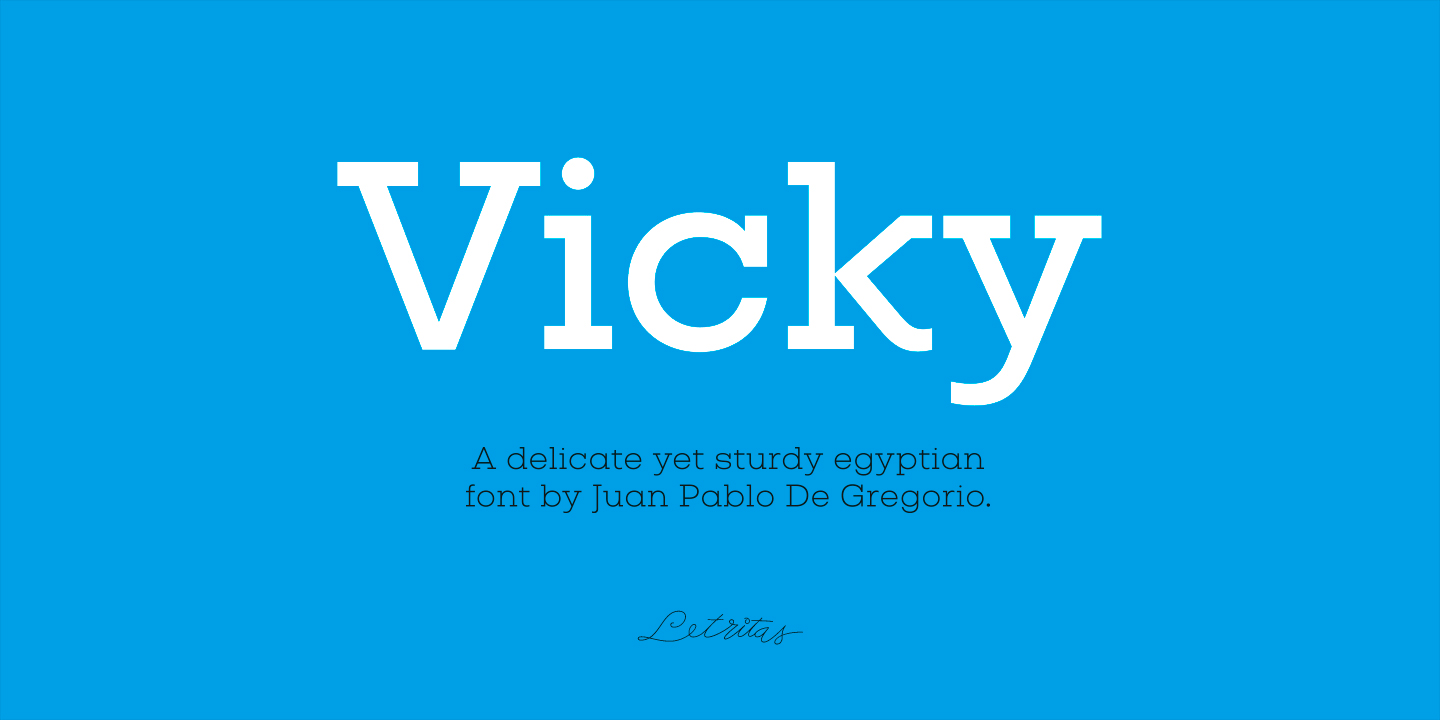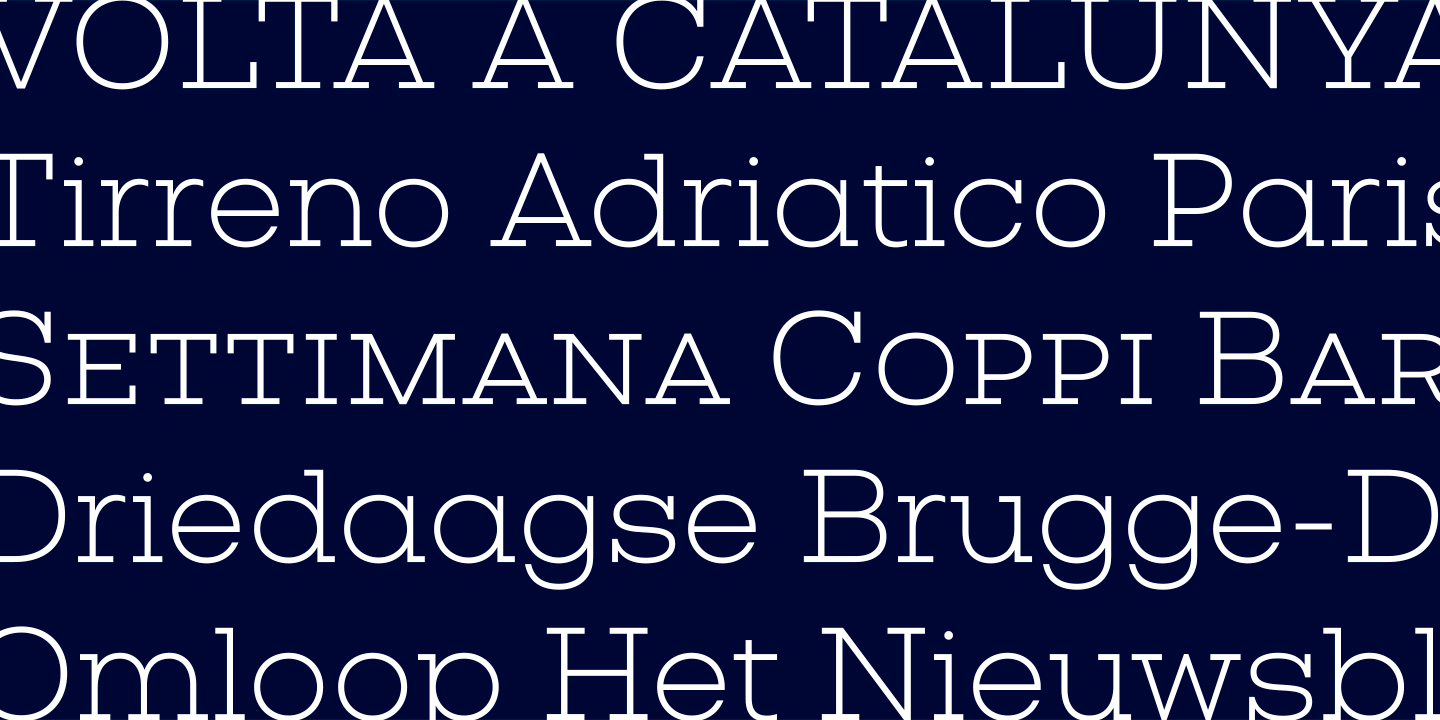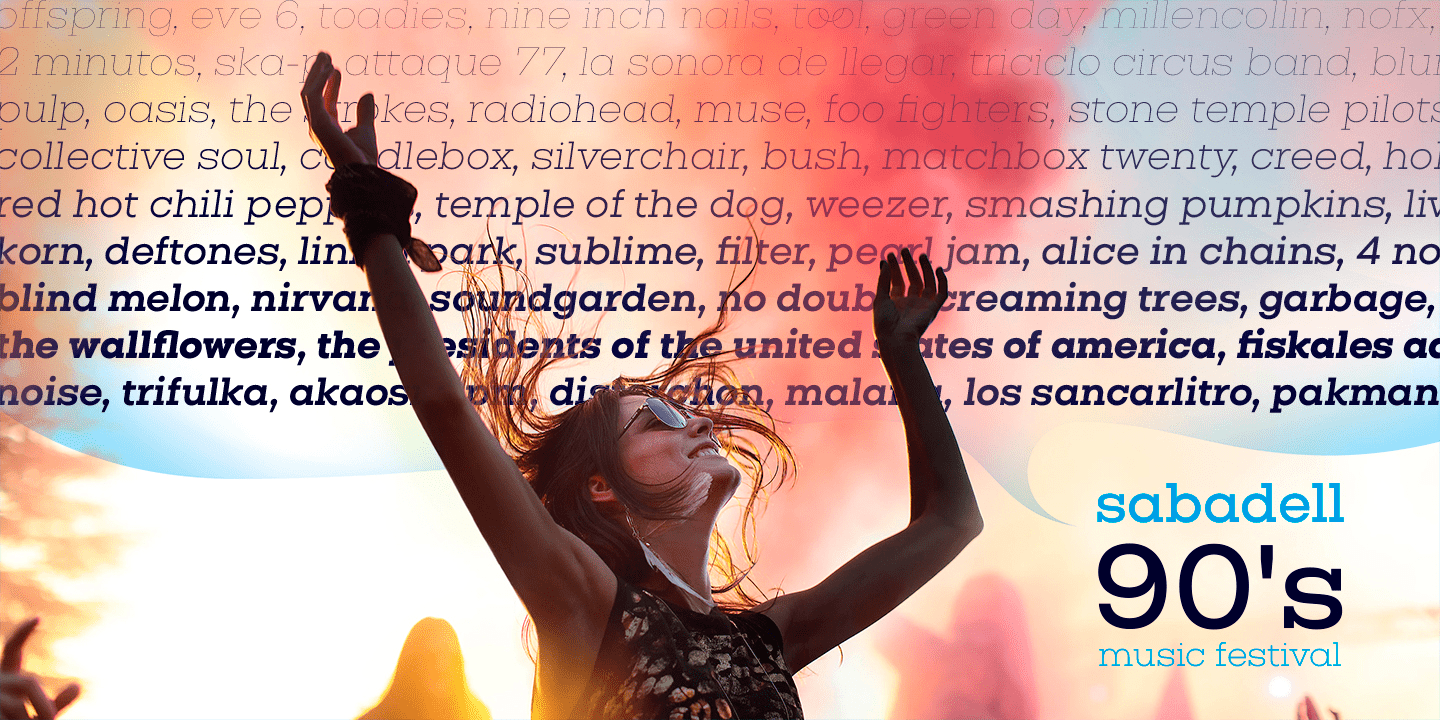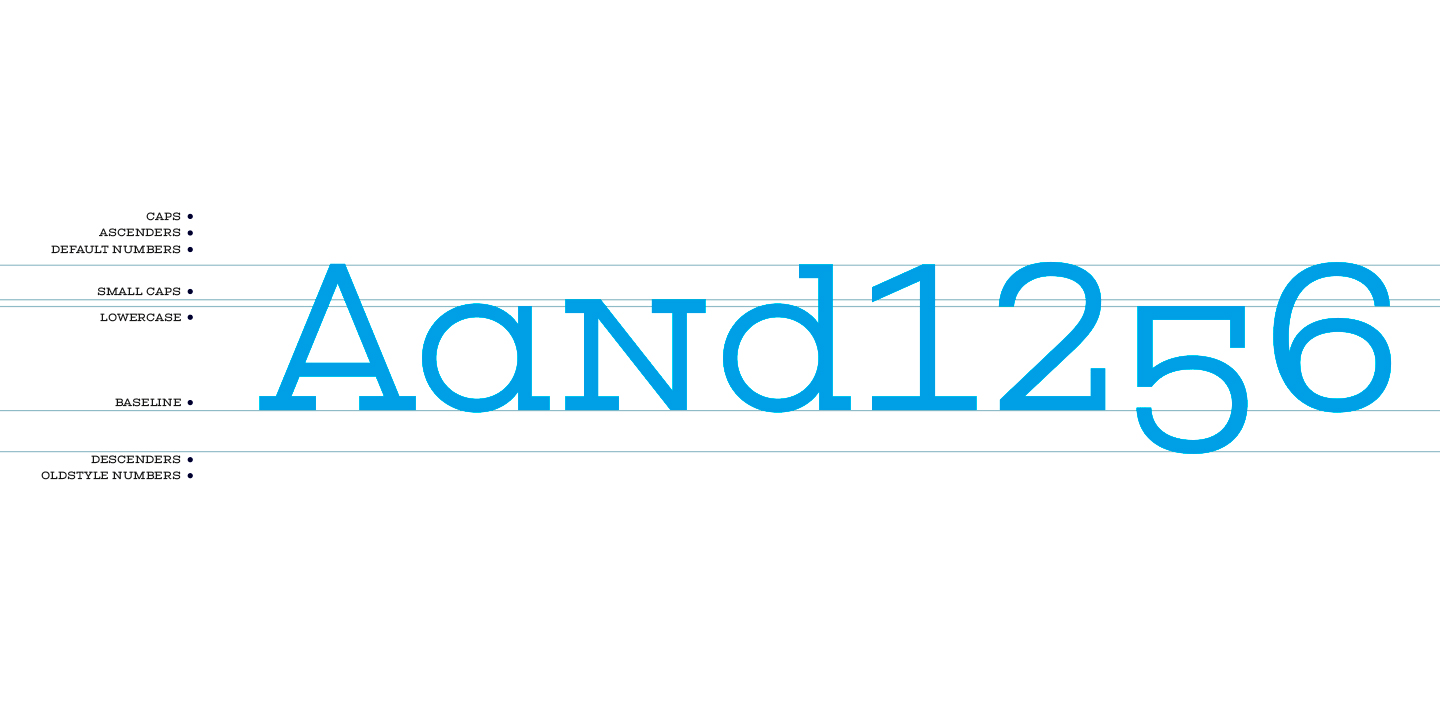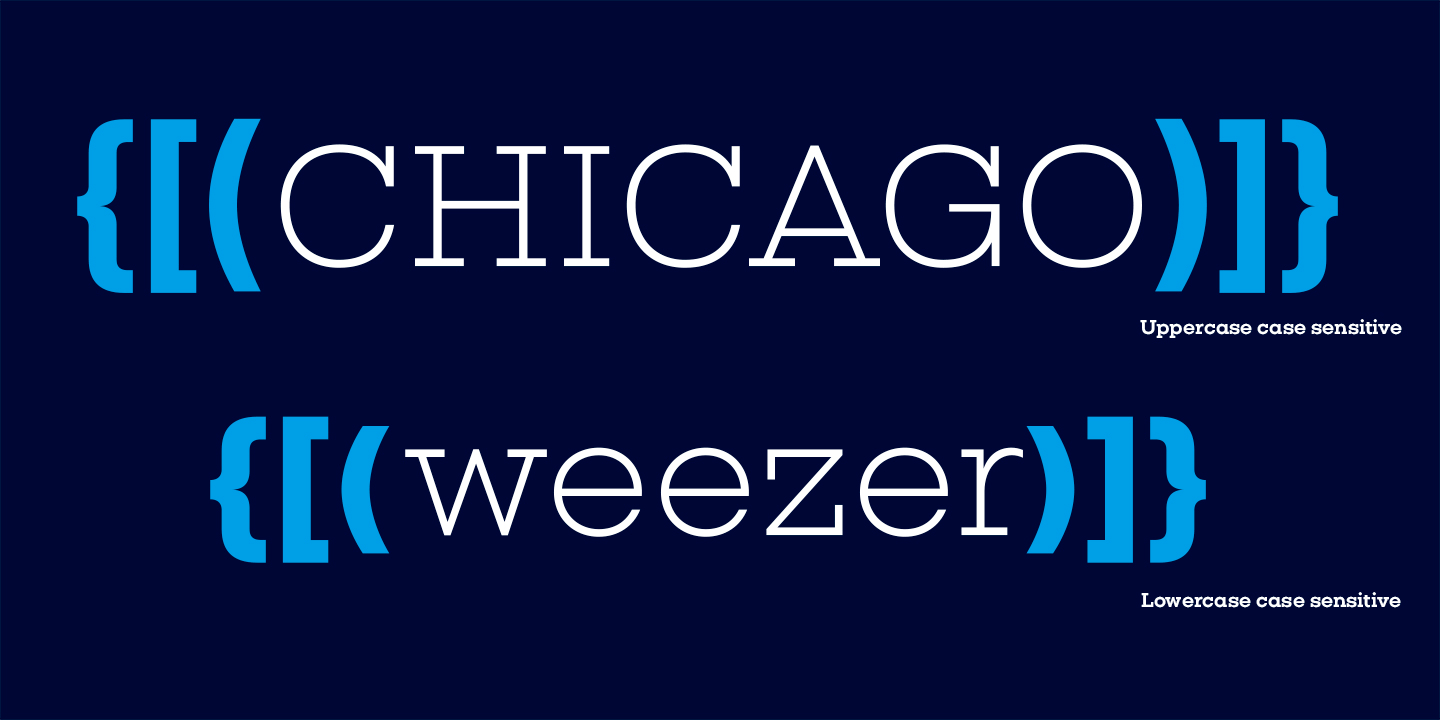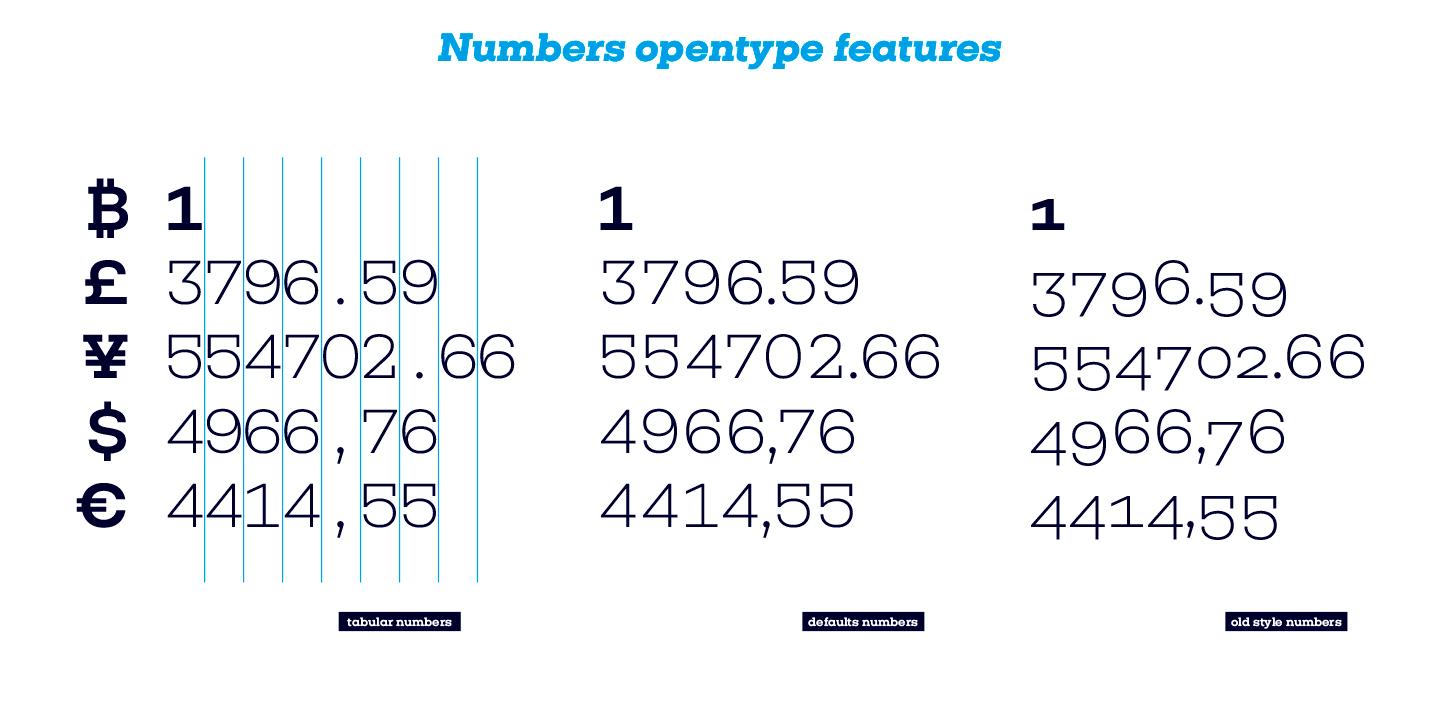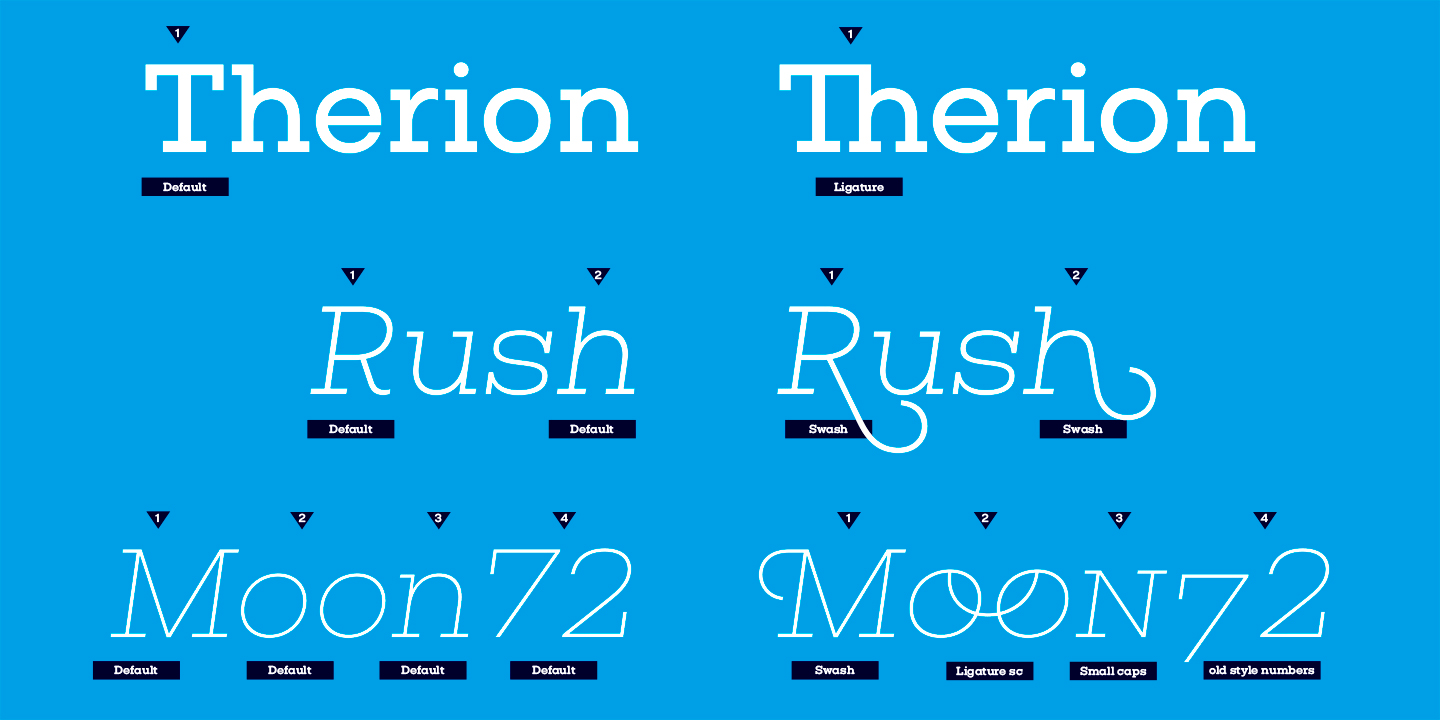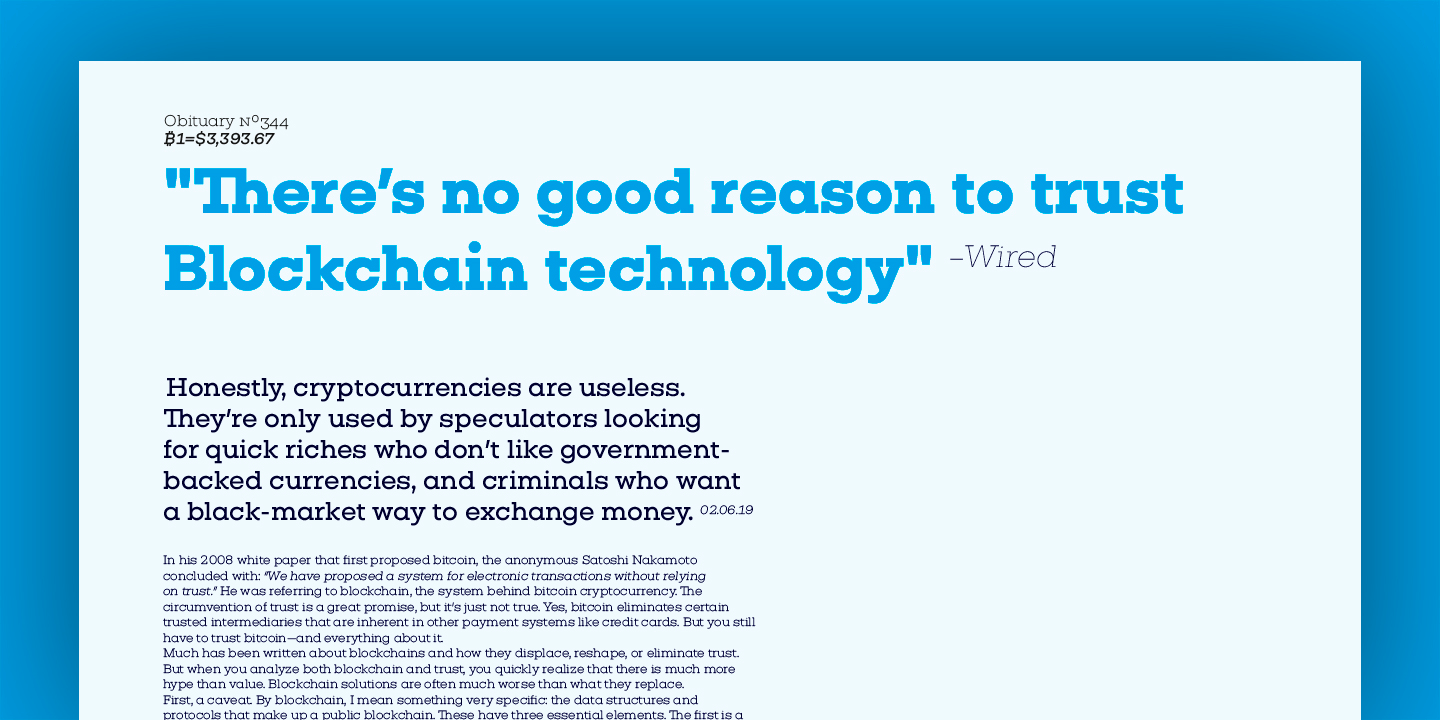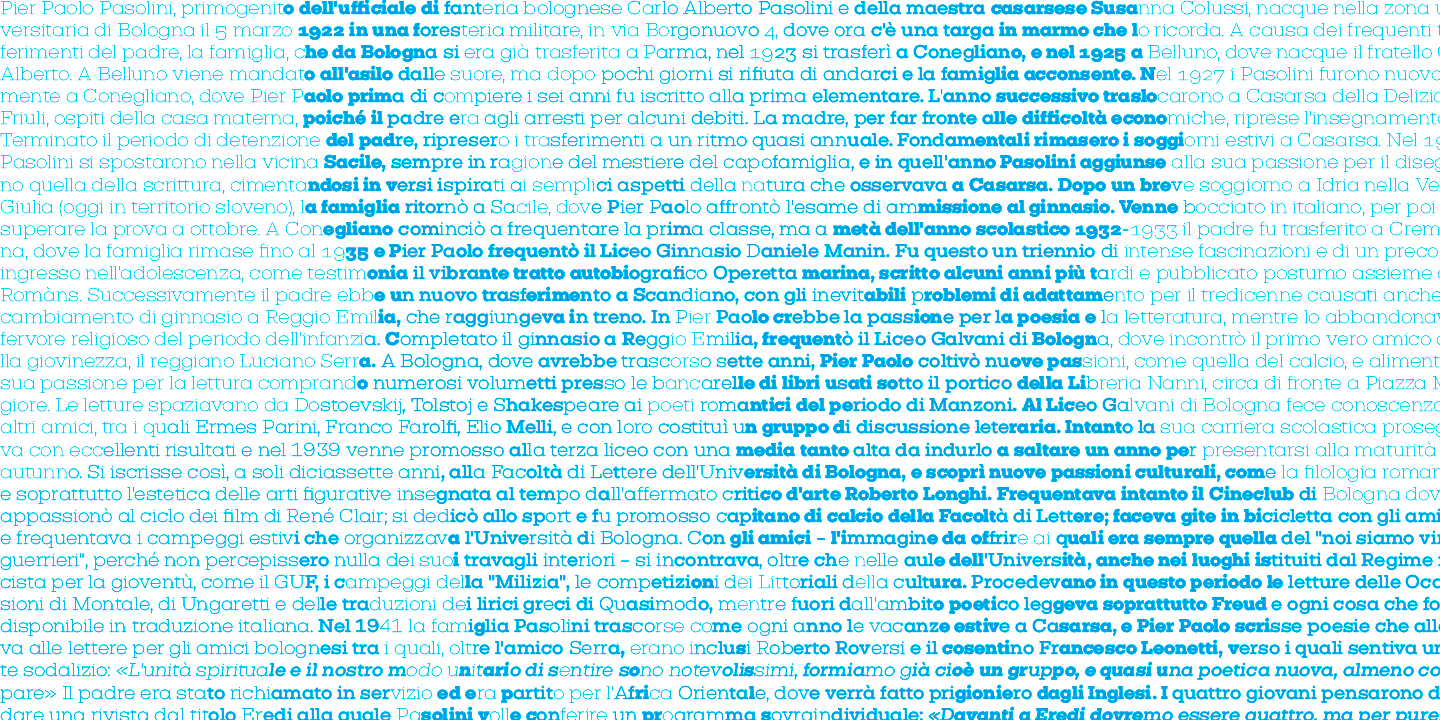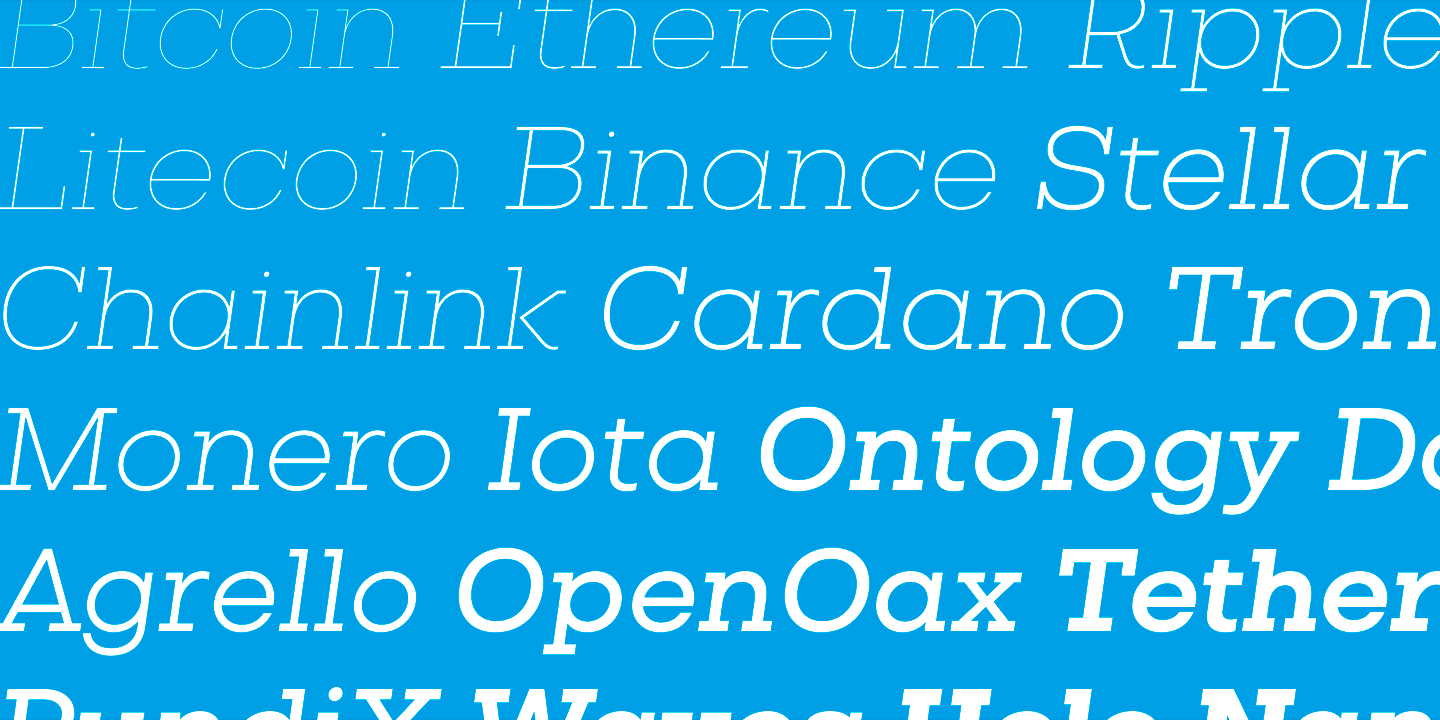
Vicky
Font Family by Letritas
Vicky is a slab serif typeface for headers and headlines, designed with the fundamental geometric shapes in mind, as to ensure balance and harmony. Like any slab serif font, it has a very particular strength and sturdiness. Since its shapes are born from geometry, it features a handful of delicate, thoroughly crafted details and particularities which makes it unique.
Vicky is a lively and joyful typeface, it boasts exquisite shapes yet with a bold character. Specially designed to work alongside “Liliana”, another geometric-based font from Letritas. Setting text with both of them together, using a balanced color scheme, ensures eye-catching results, especially with short text layouts.
Vicky is a typeface optimal for being used in marketing assets, packaging design, magazines, branding, film captions, headlines, editorial, quotes, logos, corporate identity, and motion graphics.
The italic version has a 8-degree slant. This feature is intended to convey a gorgeous feeling of tension, power, and agility. It’s very interesting to realize how the dynamism in the italic characters works when compared with the regular ones.
The typeface has 9 weights, ranging from “thin” to “heavy”, and two versions: "regular" and "italic". Its 18 files contain 707 characters with ligatures, alternates, and swashes. It supports 219 Latin-based languages, spanning through 212 different countries.